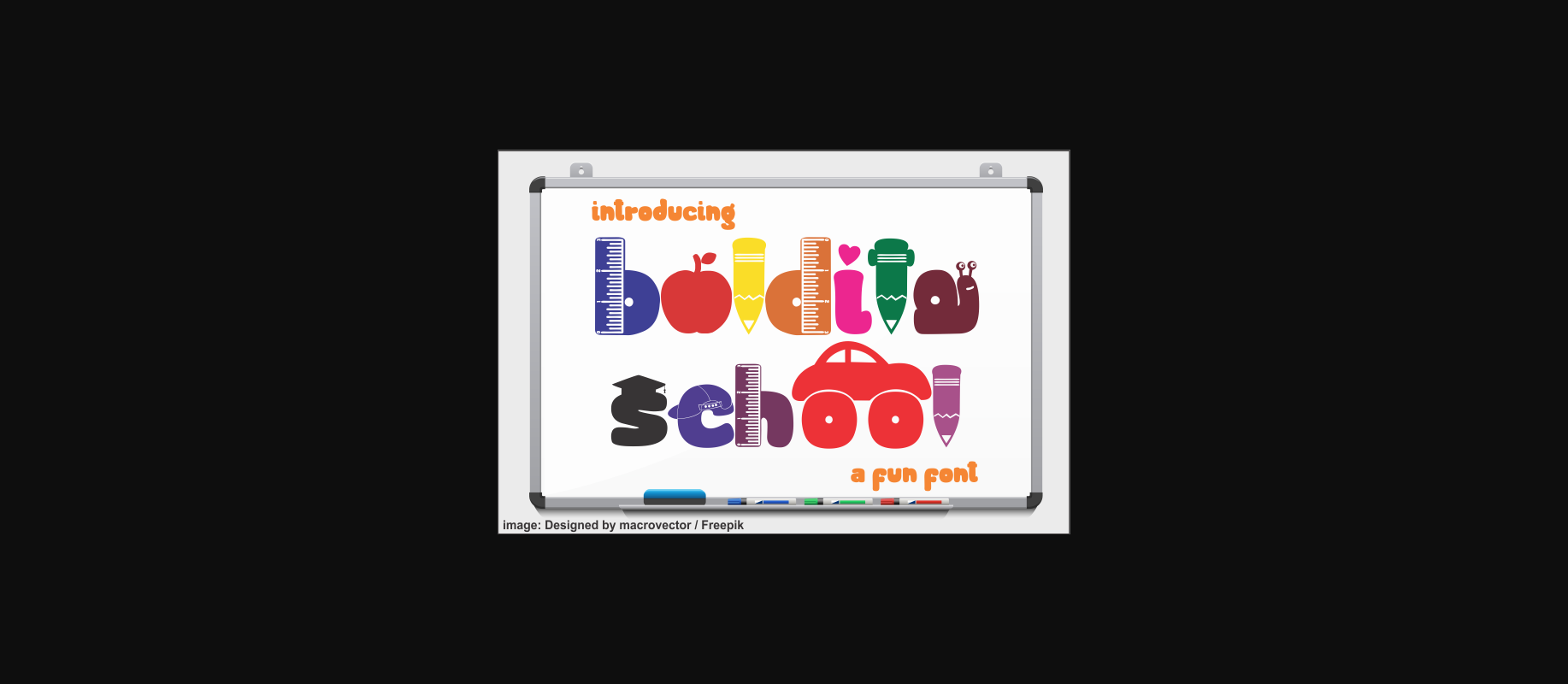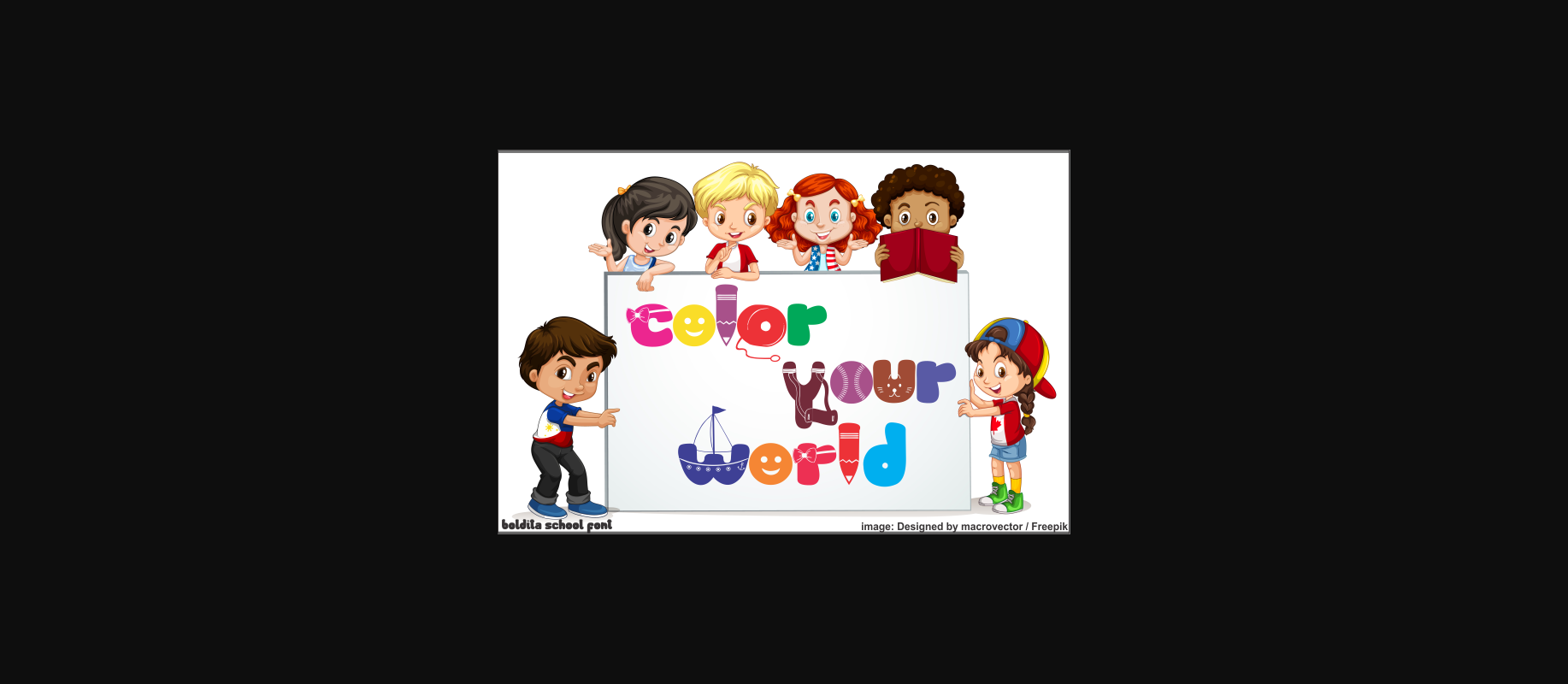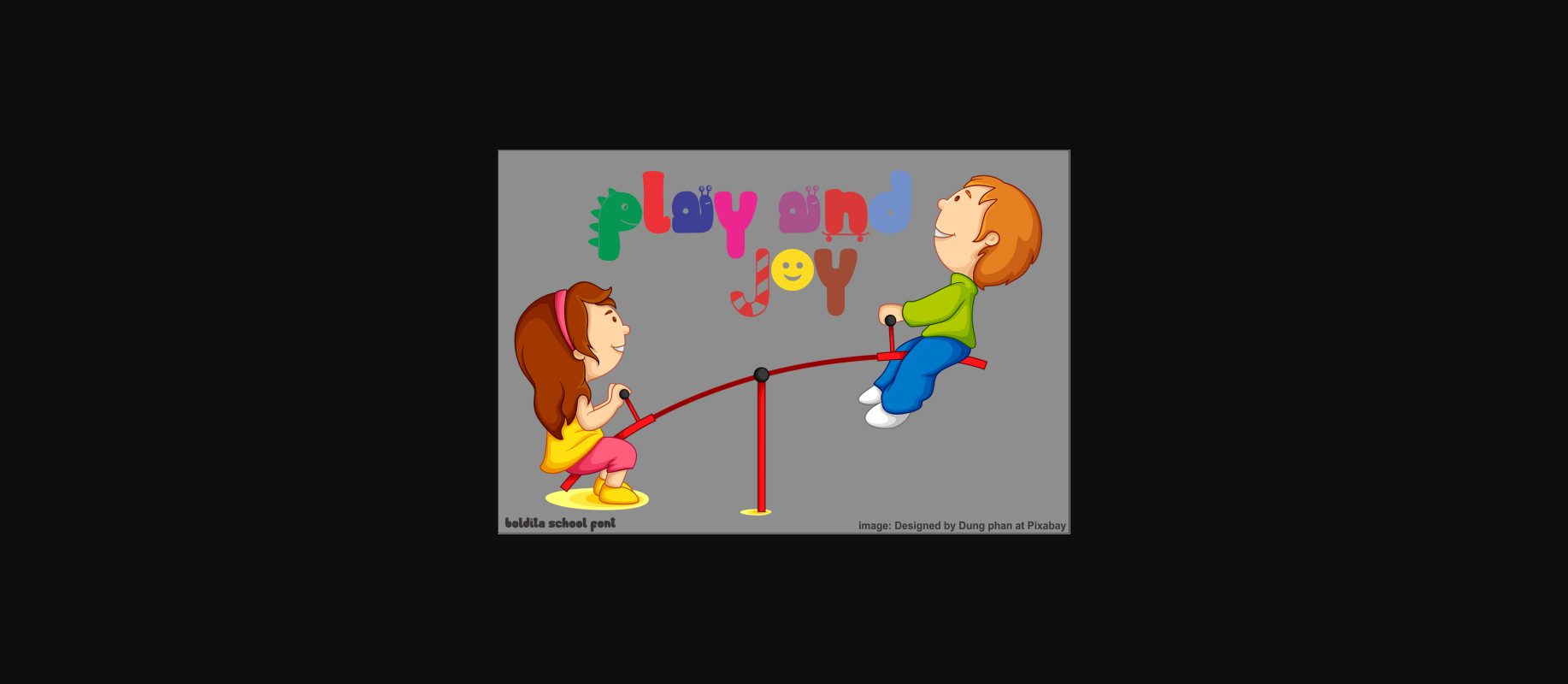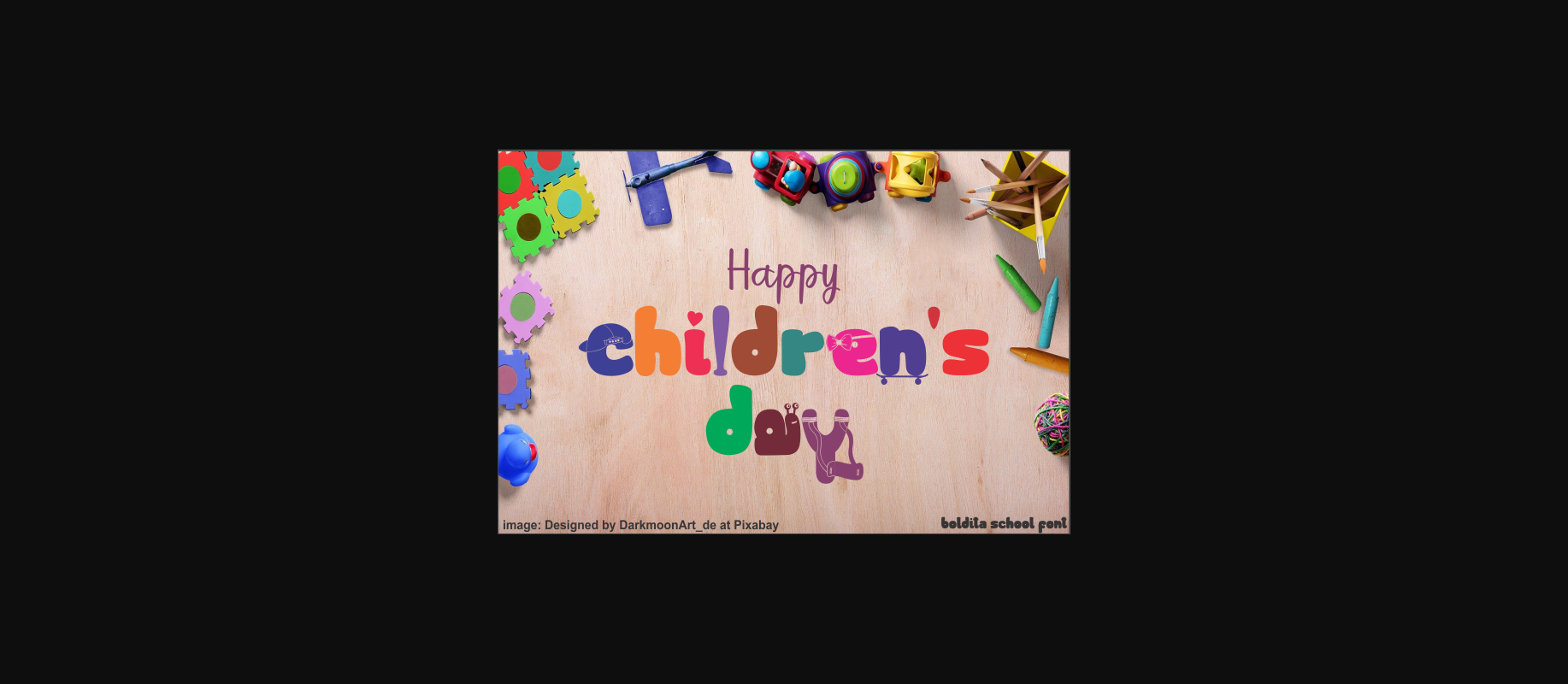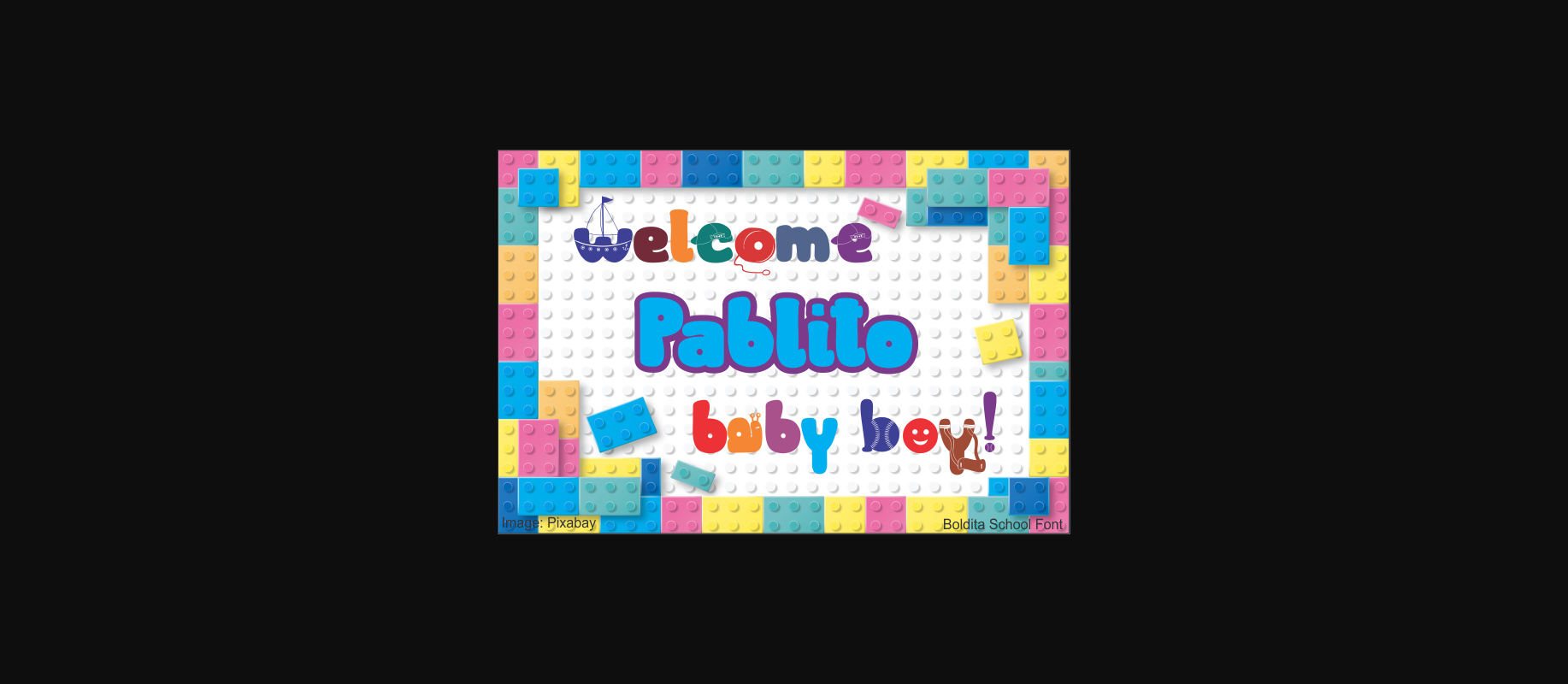
Boldita School Font
About Boldita School Font
Boldita School is a fun and jolly decorative font. It embodies playfulness and authenticity and is the perfect choice for any children activity or school project.